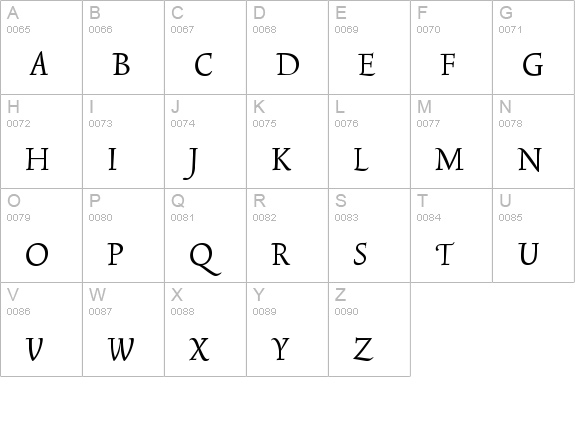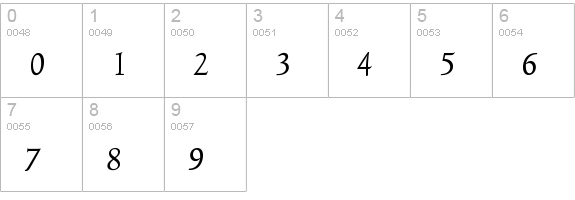
Introducing TriniteNo2-ItalicTab, a stylish and sophisticated font that will add a touch of elegance to any design project. This unique font is perfect for those looking to make a statement with their typography. Its sleek and sleek design allows for easy readability, while its italicized style adds a sense of grace and flair. TriniteNo2-ItalicTab is a versatile font that can be used in a variety of contexts, from branding and logo design to editorial layouts and web designs. Its clean lines and balanced proportions make it suitable for both headline and body text, ensuring that your message is communicated effectively. One of the best things about TriniteNo2-ItalicTab is that it is free! That's right, this stunning font is freely available to download at FontsMarket.com. Whether you're a professional designer or a casual enthusiast, you can enjoy the benefits of this font without breaking the bank. So why wait? Enhance your designs with the beauty and sophistication of TriniteNo2-ItalicTab. Download it for free today at FontsMarket.com and elevate your typography game to new heights.